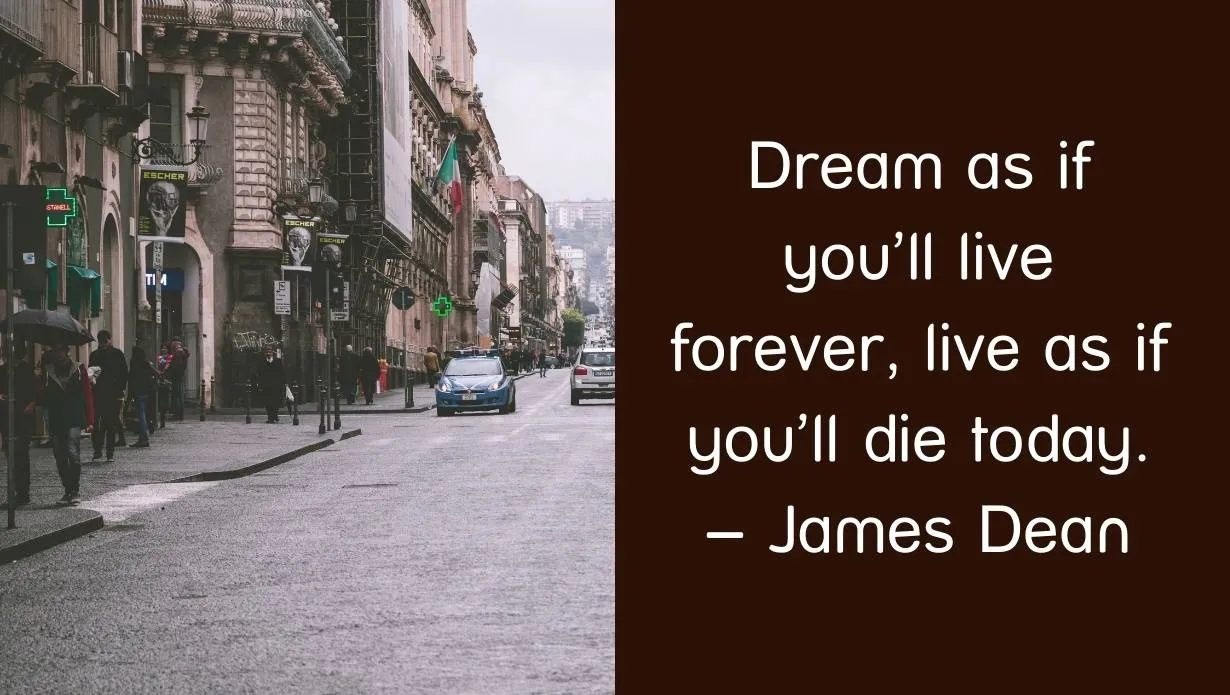
Street Font was designed by two well-known graphic designers called GemFonts and Typotheticals. It belongs to the Sans Serif typeface family.
It is a guide to creating stencils of your favorite characters or lettering for free. This typeface has an elegant and clean texture look appearance.
This typeface is the best guide on the internet to create stunning, artistic stencils. You can make an urgent design with the help of its online generator tool. This wonderful typeface is very best for copy and pastes functions. A similar font of this typeface is Halis Rounded Font.